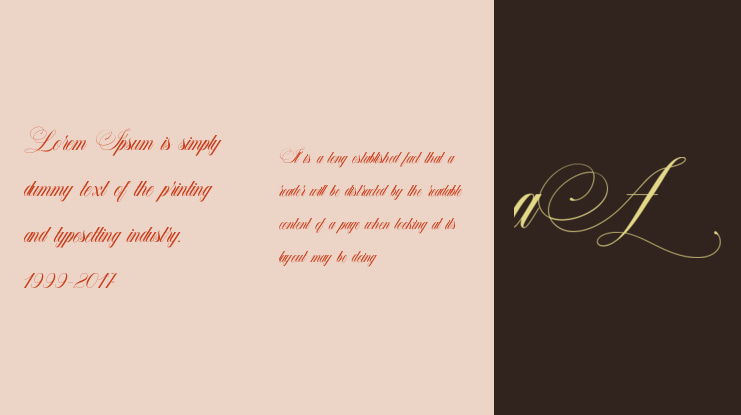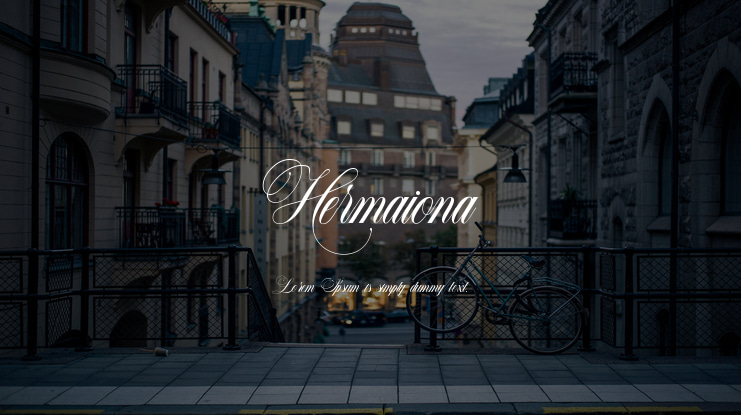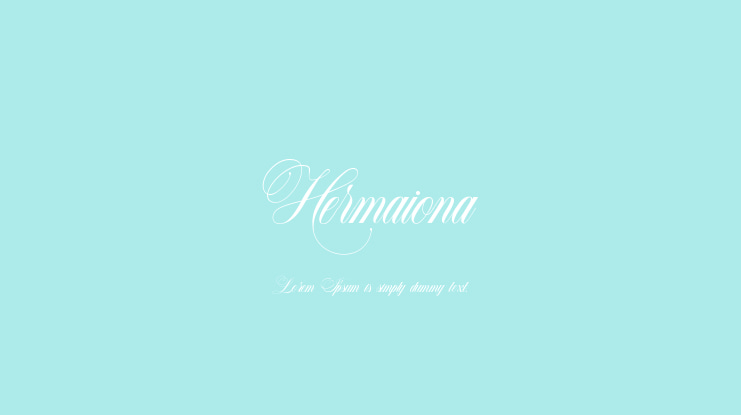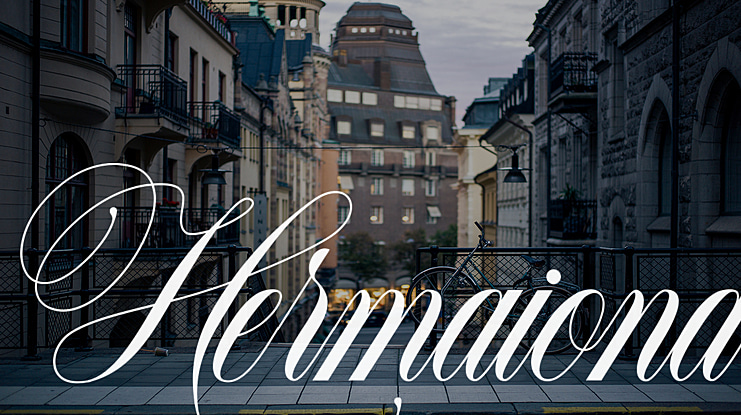
Hermaiona Font
Hermaiona - A Font by Aluyeah Studio
Bonjour! Hermaiona a royal and lux display font. This font was carefully crafted and inspired by luxury fashion in the world. It creates a luxurious, rich, exclusive and elegant look in design.
Use this font for your luxury brand, fashion brand, resort, cosmetics, invitations, wedding, branding, packaging, magazines, boutique, social media, restaurant, spa, greeting cards, headers, headline and many more.